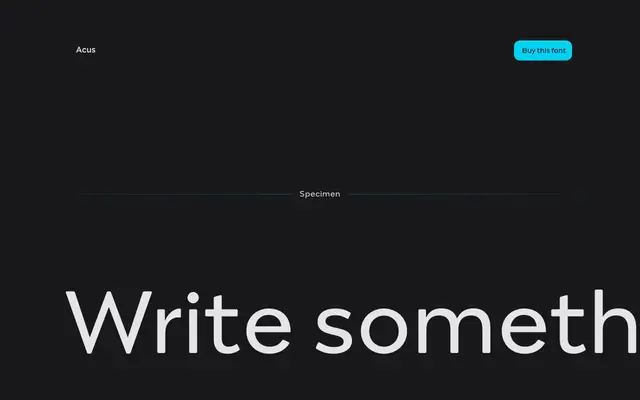
Acus
Capitalics · Borys Kosmynka
A high-contrast display typeface rooted in the hand-painted enamel signage tradition of Poland from the 1950s to 1980s, with broad diacritic support and stylistic alternates.
Drawn from the visual language of Polish hand-painted enamel signs popular between the 1950s and 1980s, Acus brings a condensed feel and high contrast to display settings. Six weights from ExtraLight to Black are accompanied by stylistic alternates and small caps, giving designers considerable typographic range. Broad diacritic coverage makes it well-suited to Polish and Central European typography.
Described explicitly as a display style, with high contrast and condensed proportions drawn from Polish hand-painted enamel signage vernacular; these characteristics place it firmly in the display category rather than a conventional text serif or sans.